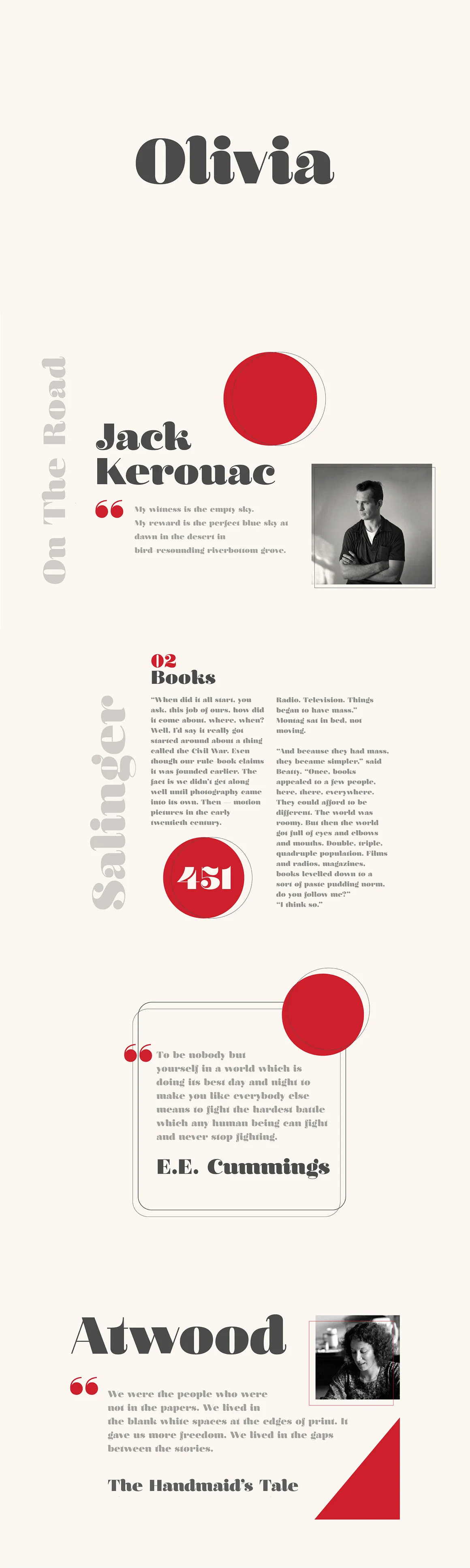
Olivia - A Curvy Typeface
Olivia A Curvy Typeface
Olivia A Curvy Typeface is perfect for feminine beauty branding, elegant fashion campaigns, luxury lifestyle marketing, graceful wedding invitations, sophisticated boutique signage, curvaceous body-positive brands, sensual spa materials, refined jewelry packaging, and elegant women's lifestyle designs.
What makes Olivia A Curvy Typeface exciting is its sensually elegant character that celebrates the natural beauty of feminine curves through gracefully flowing letterforms that embrace organic shapes and sophisticated sensuality. The font features beautifully rounded contours with voluptuous details that evoke confidence, grace, and the timeless appeal of feminine elegance while maintaining exceptional readability and professional sophistication. Its curvaceous design philosophy and elegant appeal make it perfect for brands that want to communicate feminine empowerment, natural beauty, and the confident celebration of curves while creating memorable experiences that honor the diverse beauty of all women.
Olivia A Curvy Typeface family includes various elegant weights such as Light, Regular, Medium, and Bold variations, often featuring feminine stylistic alternates and curvaceous decorative elements. The family may include graceful ligatures, elegant symbols, and sophisticated ornamental features that enhance the font's sensual aesthetic, providing designers with comprehensive options for creating beautiful typographic compositions that celebrate feminine curves and elegant sophistication.
This gracefully curvaceous typeface has gained popularity among beauty brands and feminine-focused businesses seeking authentic curvy typography solutions that celebrate natural feminine beauty. Olivia A Curvy Typeface provides an excellent opportunity to embrace this elegant font before investment. The font's character set includes feminine symbols and curve-inspired glyphs that work perfectly for beauty and lifestyle industry applications. Whether you're designing for body-positive brands, luxury fashion houses, or feminine wellness services, Olivia A Curvy Typeface delivers the elegant sensuality your project requires. Its versatile nature makes it suitable for various feminine applications including plus-size fashion brands, women's health services, beauty salons, and empowering lifestyle companies, ensuring your typography choices communicate feminine confidence and natural beauty while creating memorable brand experiences that celebrate the gorgeous diversity of feminine forms and the empowering beauty of embracing curves through its distinctively elegant and authentically feminine visual character.